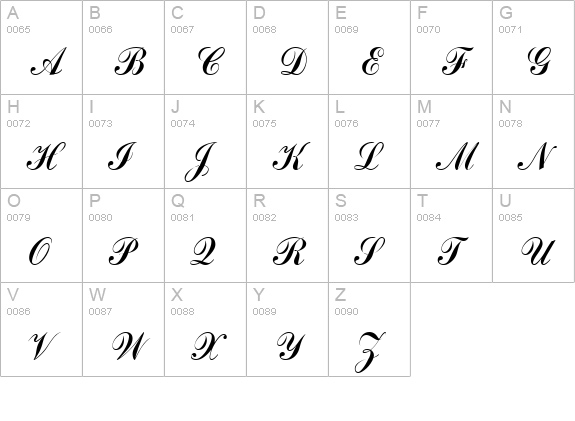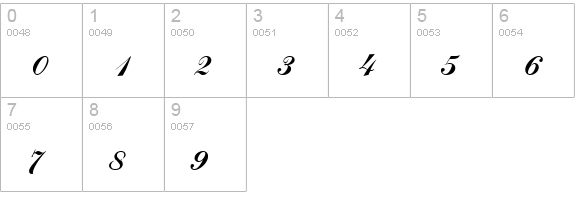
CommScriptTT Font Details
CommScriptTT font is a unique and elegant typeface that exudes sophistication and charm. With its stylish yet traditional design, this font is perfect for adding a touch of class to any project. Whether you're creating invitations, posters, or branding materials, CommScriptTT font will make your text stand out. What sets CommScriptTT font apart is not only its timeless appeal but also its versatility. This font can be used for both formal and informal purposes, making it a versatile choice for a wide range of design projects. Its clean lines and smooth curves create a sense of balance and harmony, making it easy to read and pleasing to the eye. Best of all, CommScriptTT font is available for free download at FontsMarket.com. This means you can easily access and use this beautiful font in your projects without any cost. So why wait? Give your designs a touch of elegance with CommScriptTT font today!